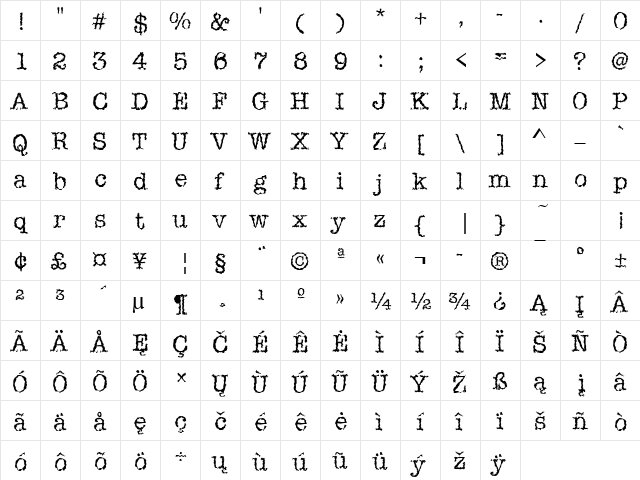
IceAgeTL Regular
Design Context for IceAgeTL Typeface
IceAgeTL is a composed and adaptable typeface that performs quietly and consistently across a wide range of design contexts.